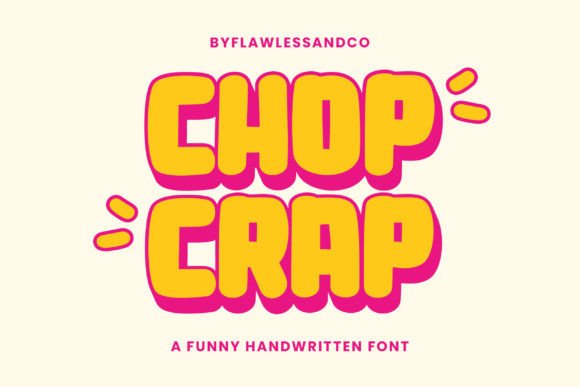
**Meet "Chop Crap": The Font That's Breaking the Boundaries of Handwritten Fun**
In the realm of typography, where letters dance and stories unfold, a new font emerges from the depths of creativity, ready to ignite your designs with a burst of laughter and originality. Allow us to introduce you to "Chop Crap," a spirited handwritten masterpiece that seamlessly blends the boldness of a graffiti artist with the playful charm of a comic book character.
Crafted by the ingenious minds at Flawless And Co., "Chop Crap" isn't just a font; it's an invitation to unleash your inner child and let your imagination run wild. Its expressive letterforms, each brimming with personality, will infuse your designs with a touch of lightheartedness and humor.
Picture this: the bold strokes of "Chop Crap" adorning a whimsical greeting card, spreading smiles with every handwritten message. Or envision it gracing the pages of a children's book, bringing beloved characters to life with its bouncy and playful style. The possibilities are endless, bound only by the limits of your creativity.
But what truly sets "Chop Crap" apart from the ordinary is its versatility. This font is a chameleon, seamlessly adapting to a myriad of design endeavors. From eye-catching social media posts that demand attention to quirky packaging that pops off the shelves, "Chop Crap" has the power to transform your creations into unforgettable masterpieces.